The Ephemerist
Trevor in use in The Ephemerist, an independent subscription-only magazine featuring writing about printed ephemera from academics and collectors from all over the world. Edited and designed by Sara Chapman.
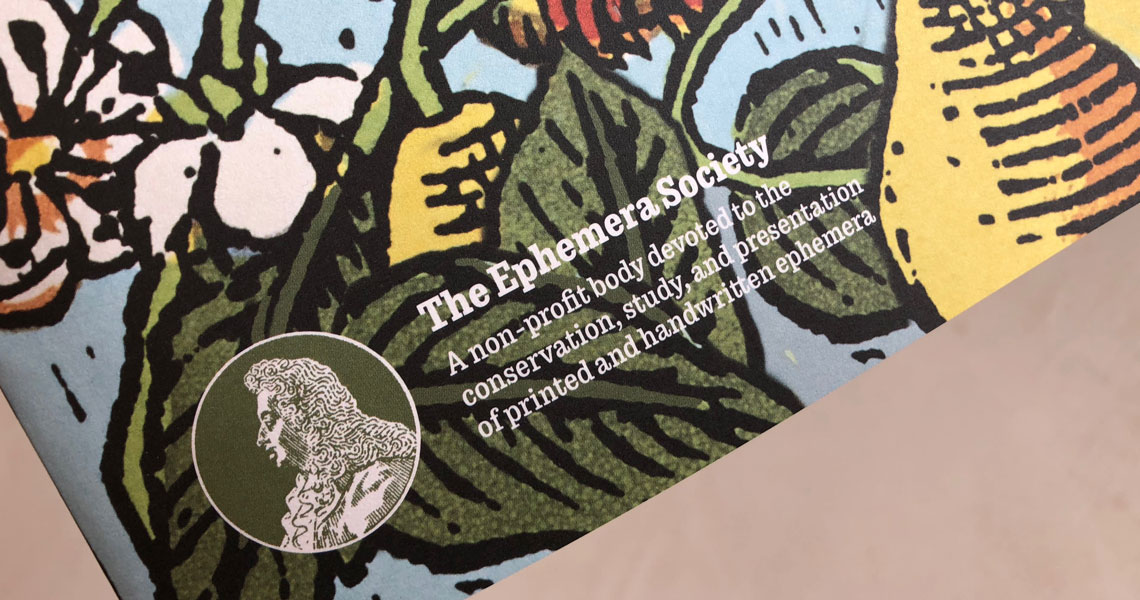
The Ephemera Society is a British non-profit organization devoted to the conservation, study, and presentation of printed and handwritten ephemera. Ephemera documents are all those materials used in our daily lives to which we don’t pay much attention and are not meant to last. As opposed to a book, it would be train tickets, bills, postcards, packaging, trading cards, invitations, small posters, fines, and IDs. These materials not only tell a social history that may be valuable for historians, but also they tell a story of printing, typography, and graphic design throughout the years.
The Society’s magazine, The Ephemerist is now in the hands of editor and designer Sara Chapman, whose first task has been to redesign and turn it into a more contemporary and attractive magazine.
In Chapman's words: “As editor and designer, I wanted to make the magazine more accessible to both collectors and graphic designers, and to present the large numbers of very rich and graphically interesting images that feature on every page. I chose a variety of magazine fonts in my redesign, but I am especially happy with Type Together’s Trevor type family, which works perfectly for the numbered references and captions to the images. It has a good range of weights — the bold holds its own against strong images, and is also a good contrast to the lighter slab serif body text. Trevor is condensed and works well at small sizes — important because some of our captions are quite long and there are lots of them. The numerals are really sweet, and, crucially, it looks and feels ‘a little bit vintage’ without being too much of a pastiche, which is what we are all about. I’m delighted to hear the TypeTogether are adding an italic soon, which we need to cope with the academic references.”
Teo Tuominen’s Trevor is an almost monolinear slab serif, that has a slight typewriter look, but is narrower to help it save space and play into its neighbourly tone.